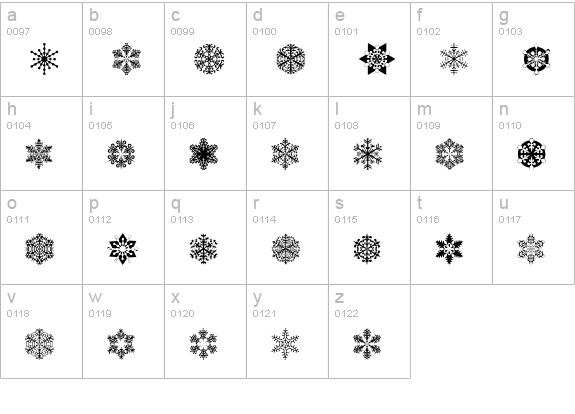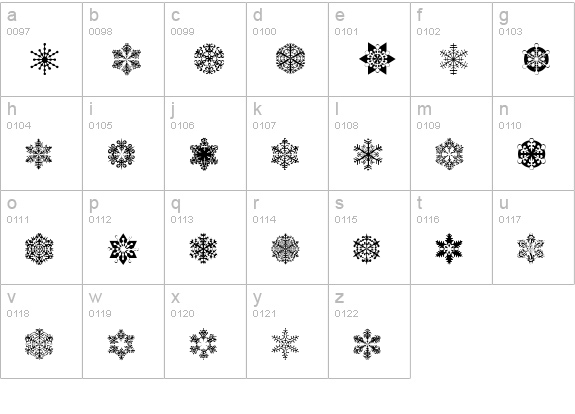
Introducing Flakey font, a whimsical and playful typeface that brings a touch of fun and charm to your designs. With its unique and distinctive characters, Flakey font is perfect for adding a creative flair to your projects. Whether you're working on invitations, greeting cards, posters, or social media graphics, this font is sure to make a statement. Best of all, Flakey font is completely free to download at FontsMarket.com. So go ahead and unleash your creativity with this delightful font and bring a touch of joy to your designs. Get your hands on Flakey font today and let your imagination run wild!